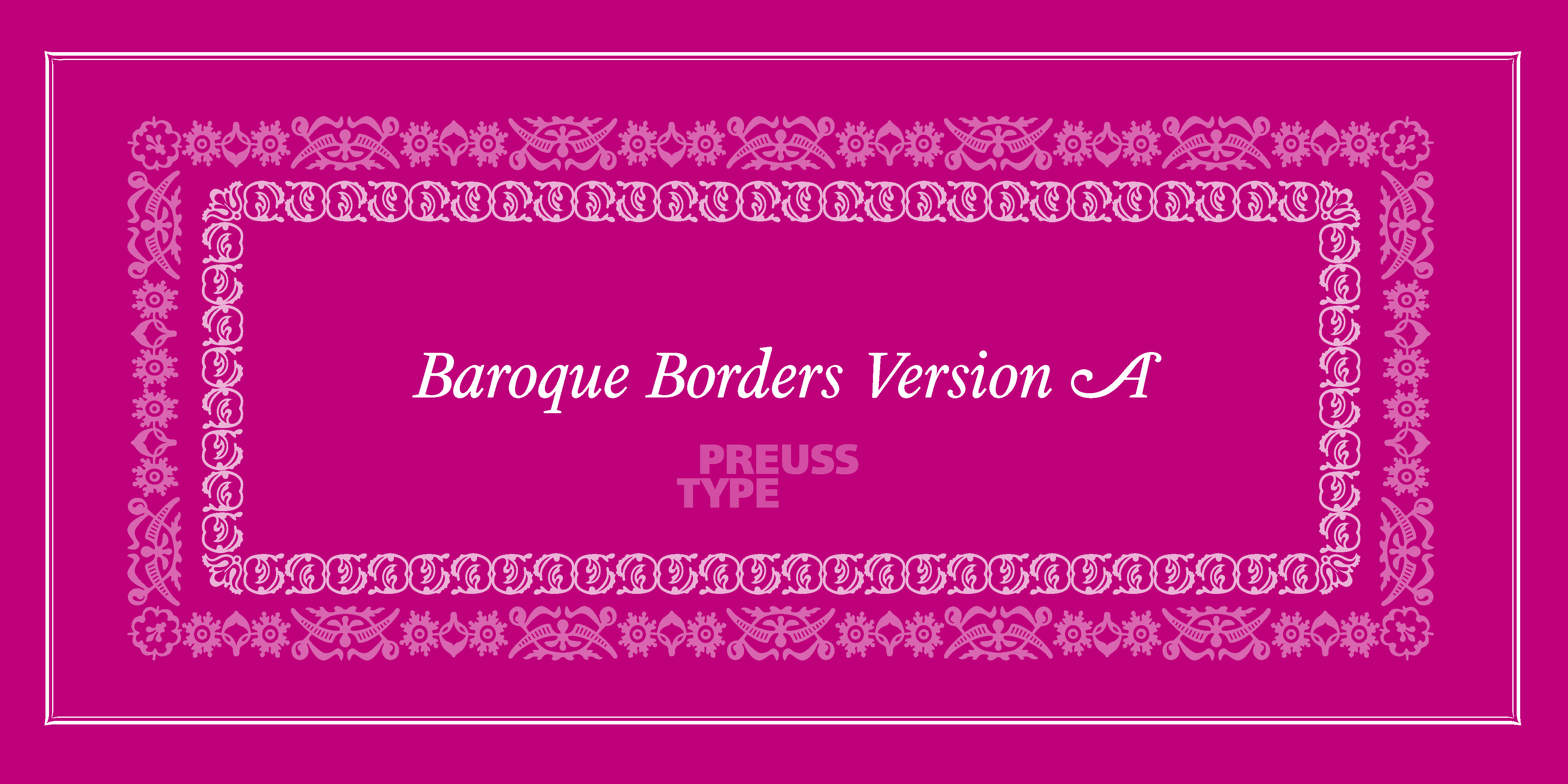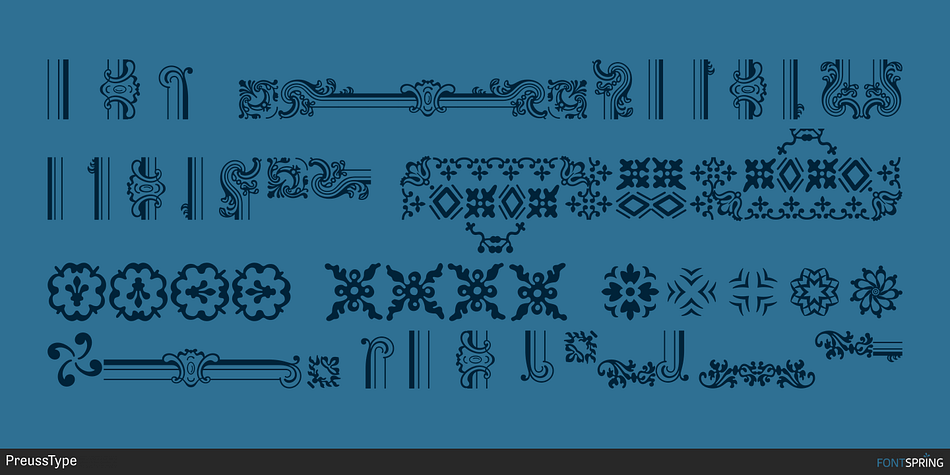
Baroque Borders Version B
Baroque Borders is a dingbat font family. This typeface has two styles and was published by preussTYPE.
Baroque Borders A and B is an extension for edges and decorations. Especially in combination with baroque fonts you can create very impressive greeting cards, wedding greetings or decorative certificates.